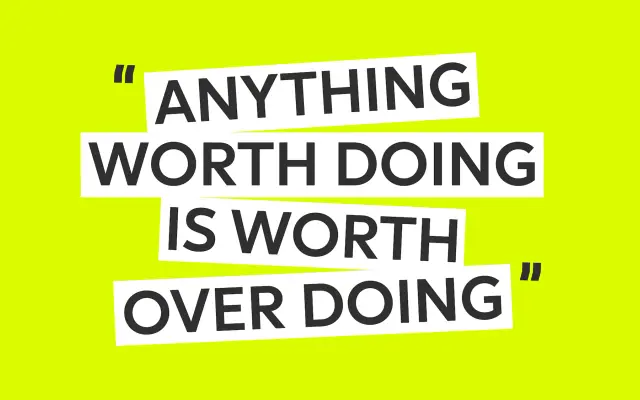
F37 Jagger
F37 Foundry · Rick Banks · 2014
F37 Jagger specimen from F37 Foundry
A four-weight display sans that pairs clean modern skeletons with one or two quietly cocked details, named for Mick Jagger.
A humanist display sans by Rick Banks that F37 describe as a marriage of clean lines with a little kick. Eight styles span Thin, Light, Regular and Bold with matching italics. Used widely in editorial and identity work, with credits including Supple Studio, Typo Circle, Elsewhen and Dunlop. Suits magazine titling, music and culture branding, fashion and packaging where the brief asks for a contemporary sans with a hint of swagger.
F37 describe Jagger as a marriage of clean lines with a little kick, naming Mick Jagger and the Rolling Stones as the spiritual reference. The drawing pairs clean sans skeletons with subtly flared, off-kilter terminals.